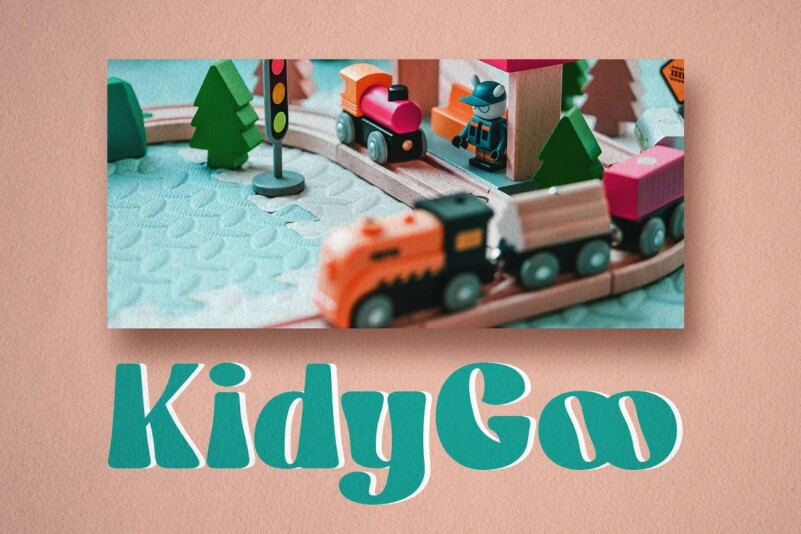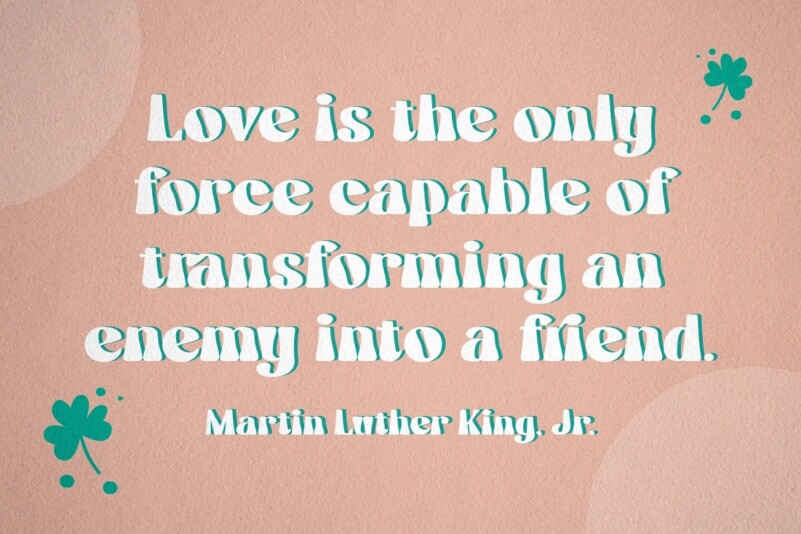
Stay Calm Font
Stay Calm Display Font is a decidedly fun-loving display typeface with a familiar hand-lettered retro aesthetic. It has bigger and thicker font proportions than the other ordinary serif fonts as its character to ease people to see it in big text sizes. Such unique characters as curvy thin lines and big, protruding dots, make this font suitable to create unique, interesting designs and applicable for bigger text sizes. You may also enjoy the available features here.